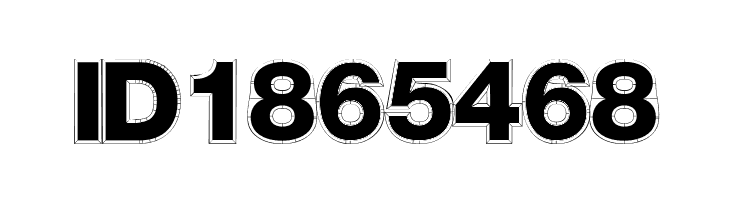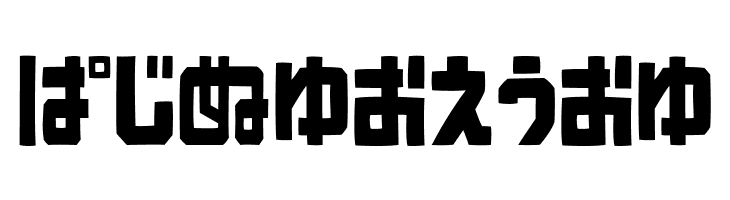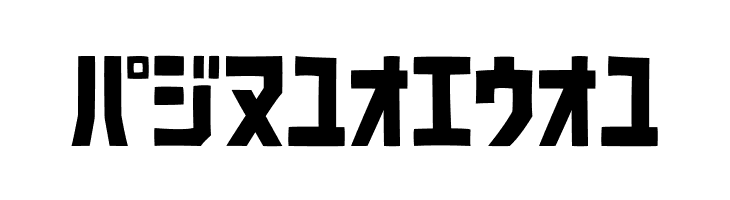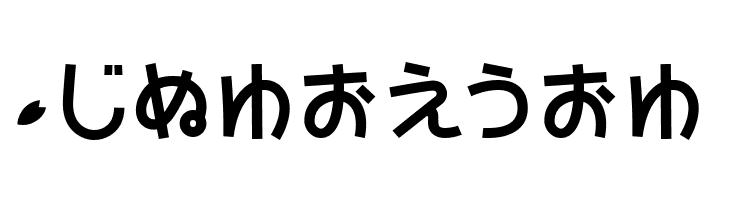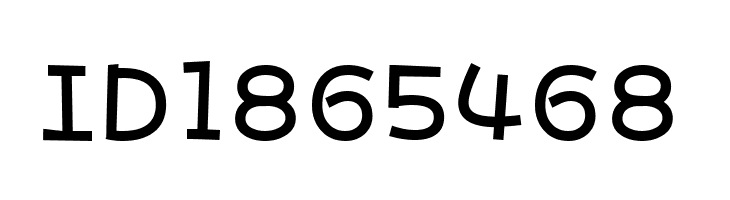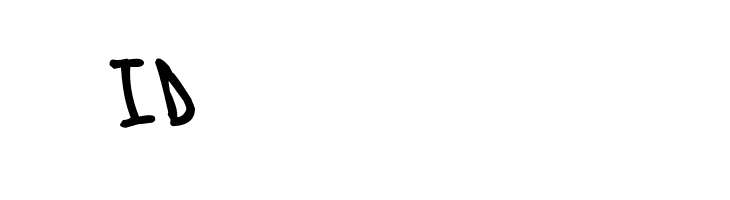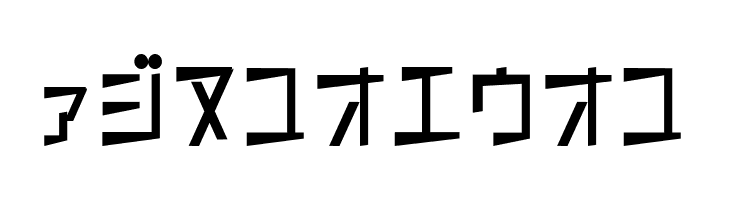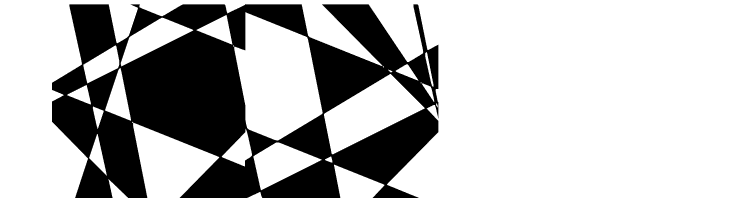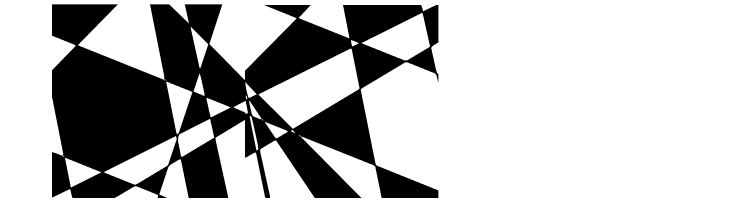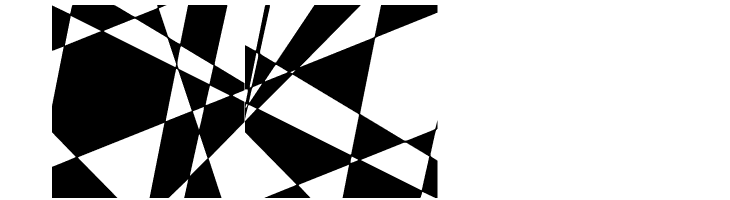
A bold, geometric font with angular, modern design.
A bold, playful handwritten font with a graffiti-inspired style.
A clean, modern font with smooth curves and balanced structure.
A playful, modern font with rounded, bold characters.
A bold, chiseled font with a three-dimensional effect, perfect for headlines.
Bold, geometric font with strong, uniform strokes and a modern, industrial feel.
Bold, geometric font with blocky, angular characters for a modern, assertive look.
A bold, abstract font with fragmented, geometric characters.
A bold, abstract font with fragmented, angular characters.
An abstract, fragmented font with geometric shapes and chaotic design.